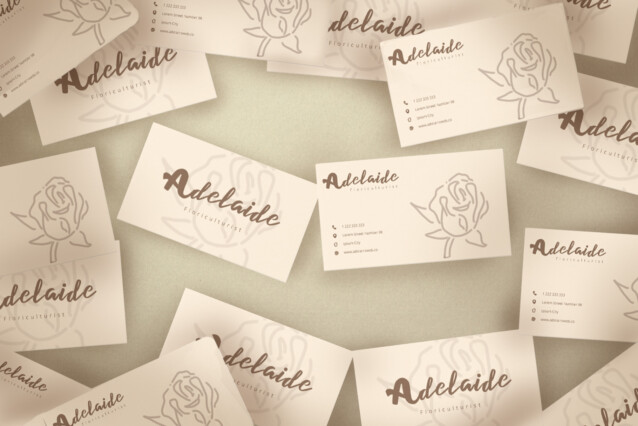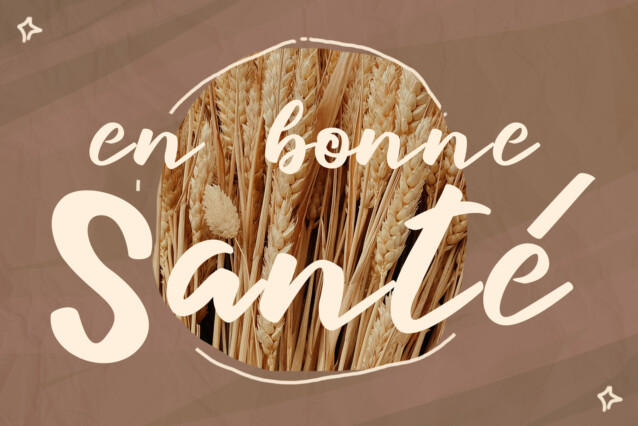
Sebale Font
Sebale Font is a font brimming with delightful whimsy, injects a playful touch into your designs.
Sebale’s design is not only handwritten but also exudes charming whimsy, making it an ideal choice for a variety of creative projects.